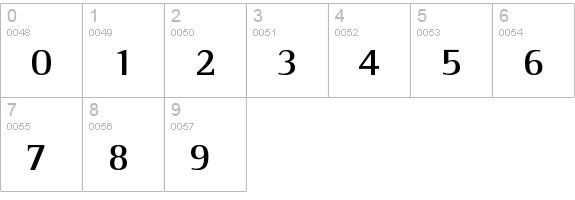
Libre Semi Serif SSi Bold Font Details
Libre Semi Serif SSi Bold is a strong, high-contrast variant in the Libre typeface family \xE2\x80\x94 well suited to headlines, attention-grabbing titles, and strong calls-to-action.
The Libre Semi Serif SSi Bold font exudes a perfect balance between sophistication and modernity, making it a versatile choice for a wide range of design projects. With its bold and confident appearance, this typeface commands attention while maintaining a sense of approachability. The semi-serif style adds a unique twist to traditional serif fonts, giving it a touch of contemporary flair. Best of all, the Libre Semi Serif SSi Bold font is completely free to download at FontsMarket.com. Whether you're working on branding materials, editorial layouts, or web design projects, this font is sure to elevate your work with its bold presence and undeniable charm. Don't miss out on the opportunity to enhance your designs with this exceptional typeface that is both striking and easily accessible. Download the Libre Semi Serif SSi Bold font today and watch your creations come to life with style and sophistication.